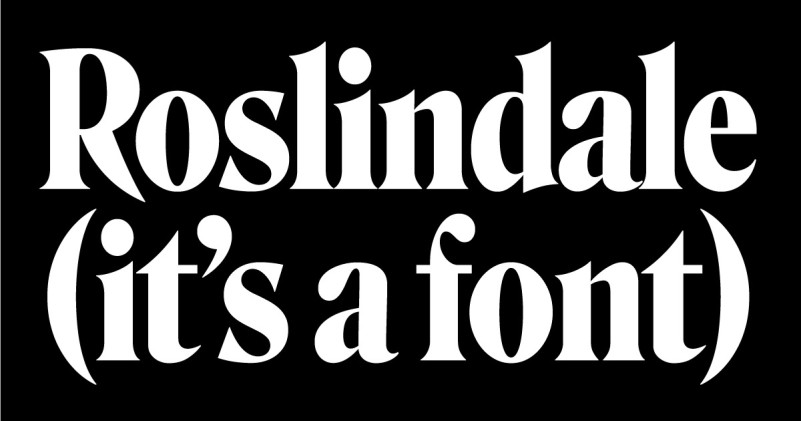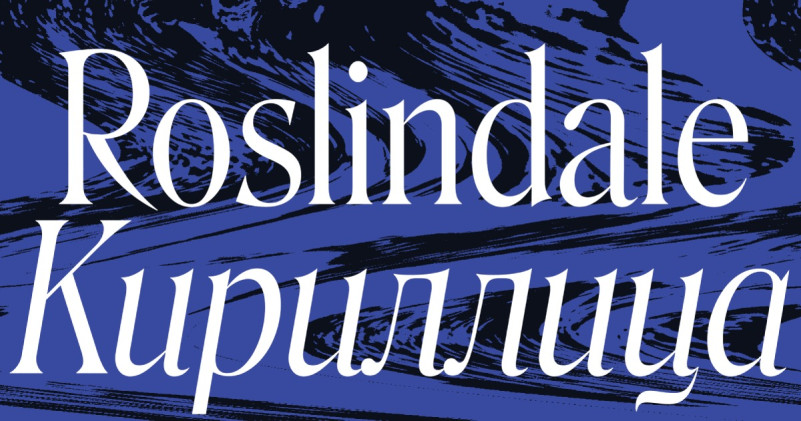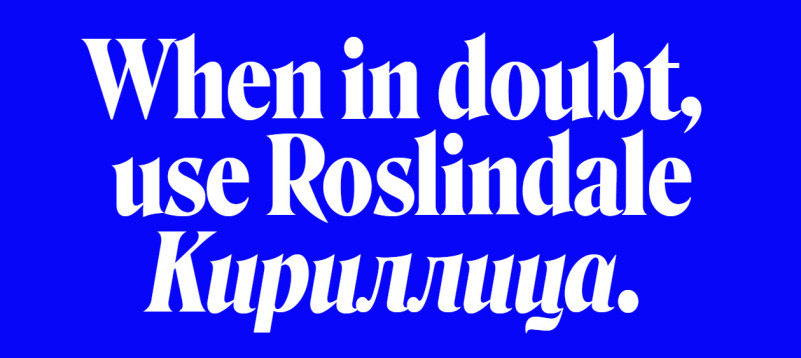
Roslindale Cyrillic Font
Roslindale Serif Font, gets its unique attitude from the reverberation of sharp, pointy serifs against bulbous, round shapes. In her interpretation of DJR’s design for the Cyrillic script, Serbia-based type designer Jovana Jocić has taken Roslindale’s interplay of sharps and rounds to the next level.
Roslindale builds on the model of De Vinne, a quirky oldstyle from 1892 named after the famed nineteenth-century printer. But while De Vinne was at times a bit blotchy and uneven, Roslindale’s tight spacing and slick curves lean more towards 1970s interpretations of the style.
Jocić stays true to this visual style and adapts it expertly to the Cyrillic script. From the spikes on the bottom of Д to the the curled ball terminals of й, she uses every opportunity to coax the tension out of these disparate shapes.
This expansion comes in upright and Italic styles, with Bulgarian and Serbian alternates. The family includes utilitarian styles for Text as well as Display Condensed styles that allow for more dramatic flourish.